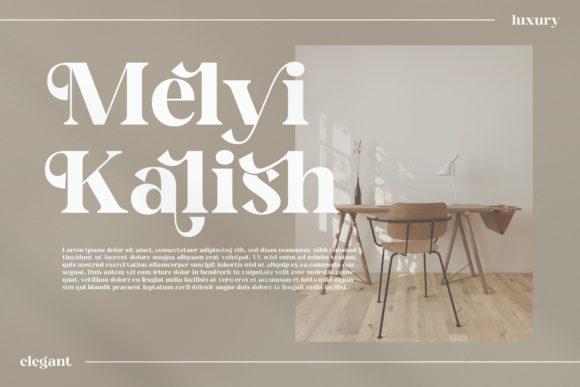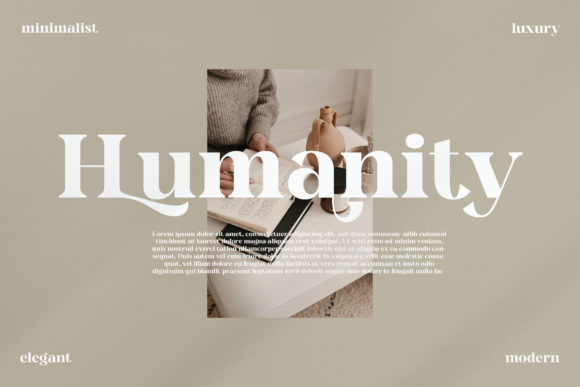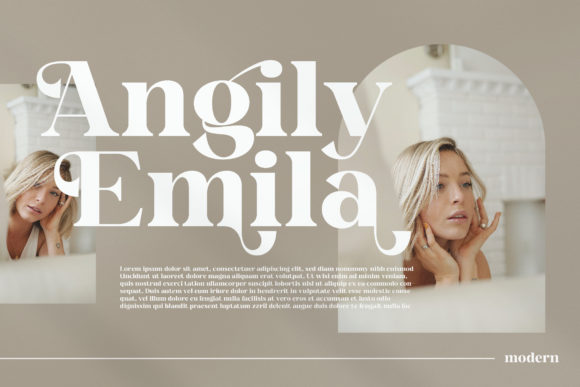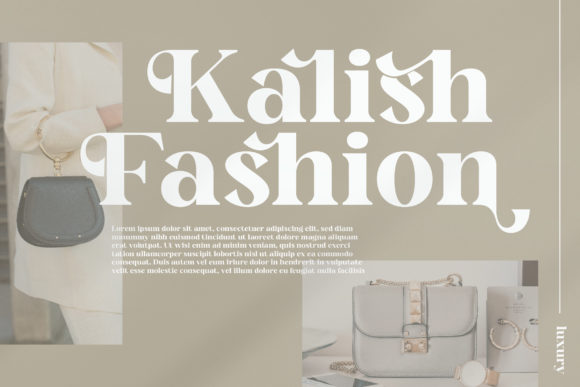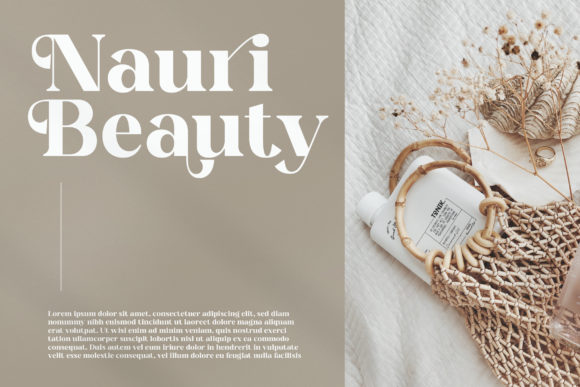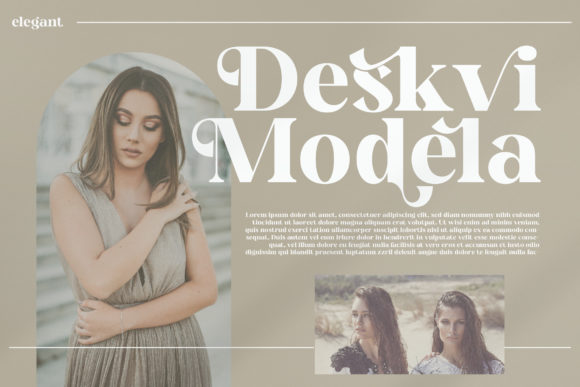
Introduction to Mahgin Font
Do you remember that moment when you finally found the perfect font to bring your creative project to life? For designers, it’s like stumbling upon a hidden treasure that elevates your work to the next level. Today, we’re excited to introduce you to the Mahgin Font, a bold and thick lettered serif font that’s sure to make a statement.
The Mahgin Font is more than just a stylish addition to your design arsenal – it’s a valuable resource that can help you create high-quality designs with ease. With its PUA encoded feature, you can access all glyphs and swashes with transparency, making it perfect for projects that require a transparent background.
Key Features of Mahgin Font
- High-quality font design ideal for creative projects, offering a unique and elegant aesthetic.
- Features a clean and modern design, suitable for various applications, including digital and print media.
Honest Review: Mahgin Font
I recently stumbled upon the Mahgin Font, and I must say it’s a great addition to any design resource collection. This font is perfect for those who want a high quality, free download for their creative project.
- Unique and elegant design, making it perfect for branding and packaging materials.
- Transparent background, allowing for seamless integration with any background design.
- Supports multiple languages, making it a versatile choice for designers worldwide.
While the Mahgin Font is an excellent choice, there are a few limitations to consider:
- No bold or italic versions available, which might limit its use in certain design scenarios.
- Not ideal for large-scale text, as it can become difficult to read.
Overall, I’m impressed with the Mahgin Font. Its elegant design and versatility make it an excellent choice for designers looking for a high quality, free download. While it has some limitations, it’s a great addition to any design resource collection.
The Mahgin Font is a versatile design resource that can be used in a variety of creative projects, including logos, branding materials, and digital graphics. It’s perfect for designers who need a high-quality, free font that can add a professional touch to their work.